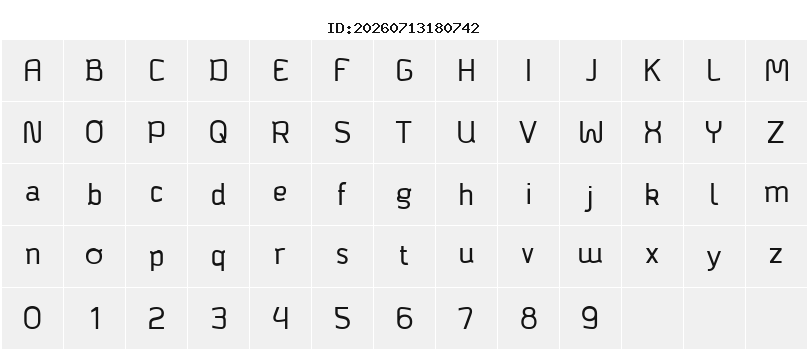
Bagadek Preview
• Font Name: Bagadek
• Font Style: Bagadek
• Full Font Name: Bagadek
• PostScript Name: Bagadek
• Designer: Beno”t Sjšholm
• Manufacturer: Beno”t Sjšholm
About Bagadek.ttf
Bagadek.ttf is a modern, elegant sans-serif font designed for ultimate readability and visual harmony. Perfect for branding, headlines, web design, and print materials.